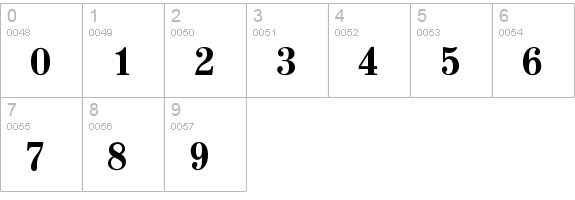
Valencia-Bold is a strong, high-contrast variant in the Valencia typeface family \xE2\x80\x94 well suited to headlines, attention-grabbing titles, and strong calls-to-action.
Valencia-Bold is a stunning and modern typeface that exudes confidence and elegance. With its bold and commanding presence, it effortlessly captures attention and adds a touch of sophistication to any design project. This eye-catching font features clean lines and sharp angles, giving it a contemporary and stylish appeal. The thick and prominent strokes make each character stand out, making it perfect for headlines, logos, and branding materials. Valencia-Bold is not only visually pleasing but also highly versatile. Its strong and assertive nature makes it ideal for a wide range of applications, from fashion and beauty to technology and corporate branding. It adds a sense of professionalism and authority to any design, making a lasting impression on the audience. One of the best things about Valencia-Bold is that it is freely available to download at FontsMarket.com. Whether you are a professional designer or an aspiring creator, you can access this remarkable font at no cost. This makes it a fantastic opportunity to enhance your projects without breaking the bank. Don't miss out on the chance to elevate your designs with the captivating Valencia-Bold font. Download it for free today at FontsMarket.com and unleash its power to captivate and inspire.